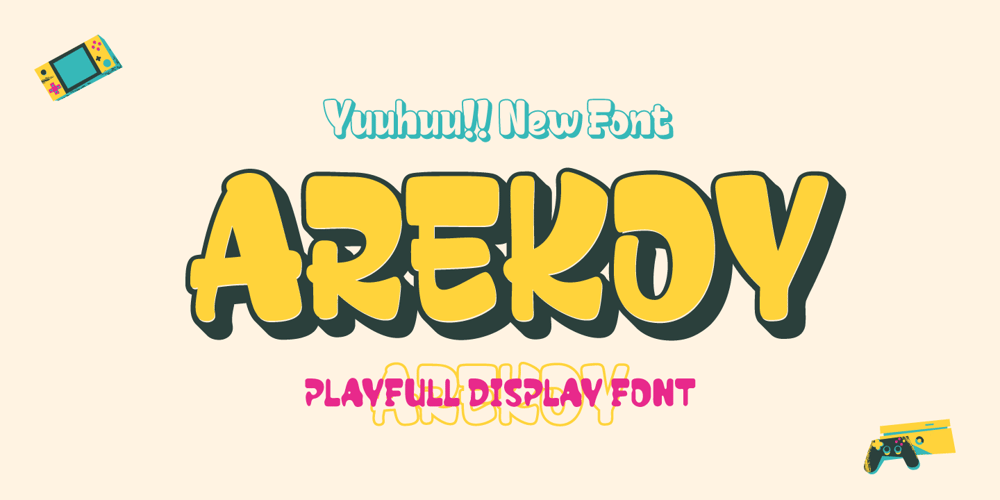
Arekoy Font Family was designed by Lita Faolina and published by Product Type. Arekoy contains 4 styles and family package options. Introducing Arekoy Font: A Playful Game-Inspired Display FontAre you in search of a bold, impactful font with a touch of gaming fun? Welcome to the world of Arekoy!Key Benefits: Arekoy is the perfect solution for various projects that require a strong theme and a bold style. With its striking characteristics, this font ensures your message stands out in movies, games, product titles, or any grand event.What Makes Arekoy Unique: Entertaining Game Style: Arekoy is designed with an entertaining game touch. Every character exudes the spirit of adventure and excitement. Four Different Style Families: Arekoy font comes in four distinct style variations: Regular, Outline, 3D, and Blurry. This provides you with the flexibility to convey various nuances in your designs. Multilingual Support: Arekoy supports multiple languages, allowing you to reach a global audience effortlessly. With Arekoy, you’re not just getting a font; you’re obtaining a tool to infuse creativity, boldness, and fun into every one of your designs.Download the Arekoy Font now and witness how your designs transform into something extraordinary!What’s Included : File font All glyphs and standard Iso Latin 1 We highly recommend using a program that supports OpenType features and Glyphs panels like many Adobe apps and Corel Draw, so you can see and access all Glyph variations. PUA Encoded Characters – Fully accessible without additional design software. Fonts include Multilingual support Thank you for your purchase!